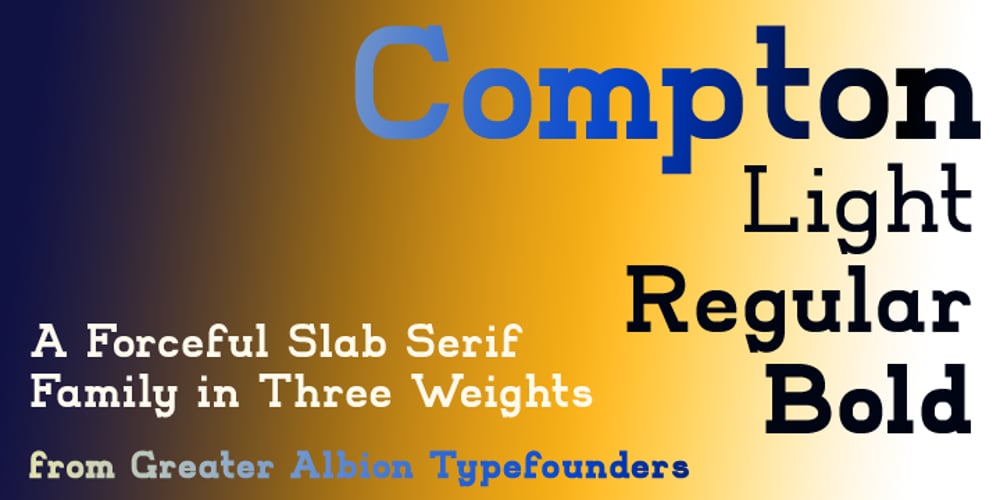
Compton Font Family was designed by Paul James Lloyd and published by Greater Albion Typefounders. Compton contains 2 styles and family package options. Compton is a clean modern slab serif face that emphasises simplicity of line and legibility. It’s offered in three weights: regular, bold and light. Compton brings the spirit of the 60s and 70s to the present day. It is ideal for clear, simple graphic design that makes an immediate impact.